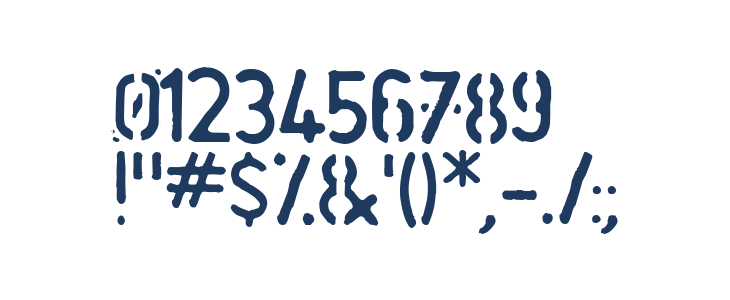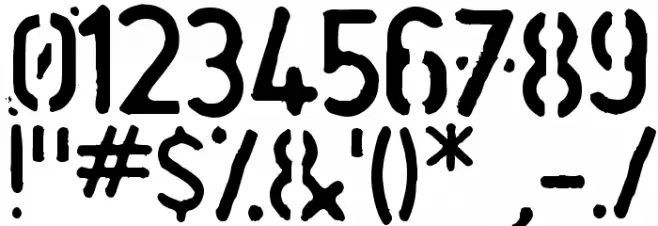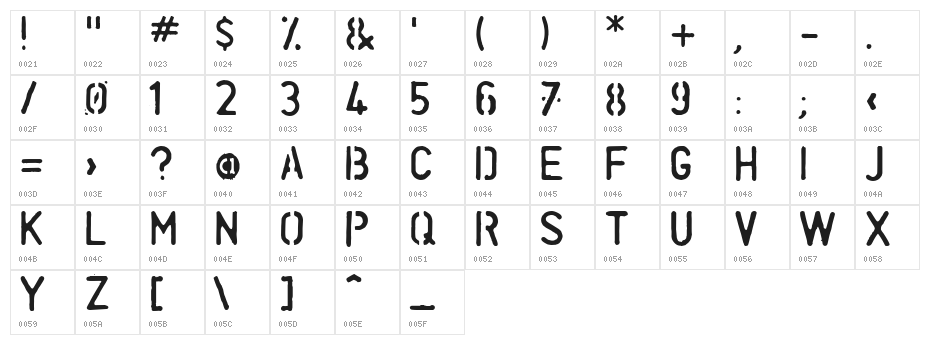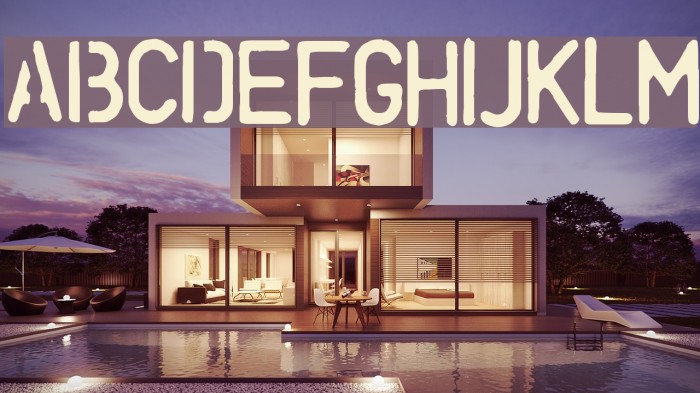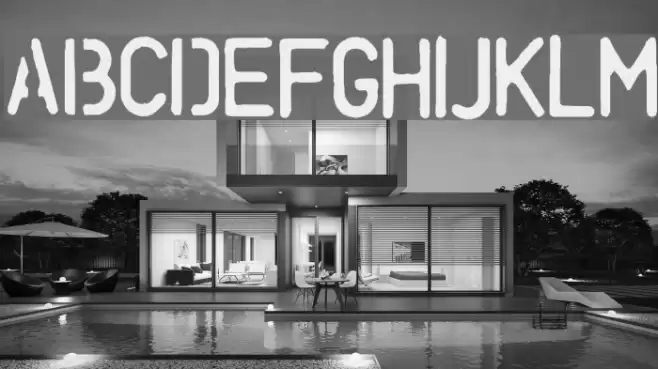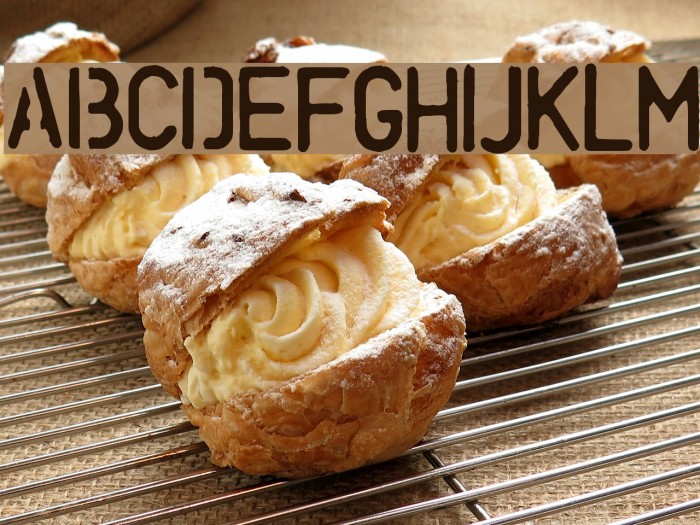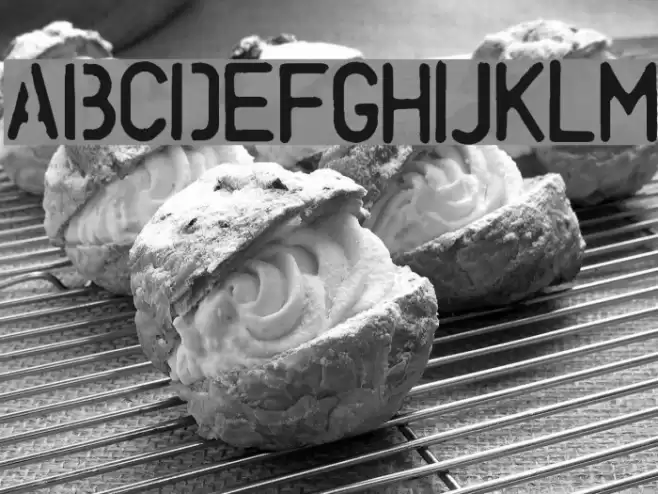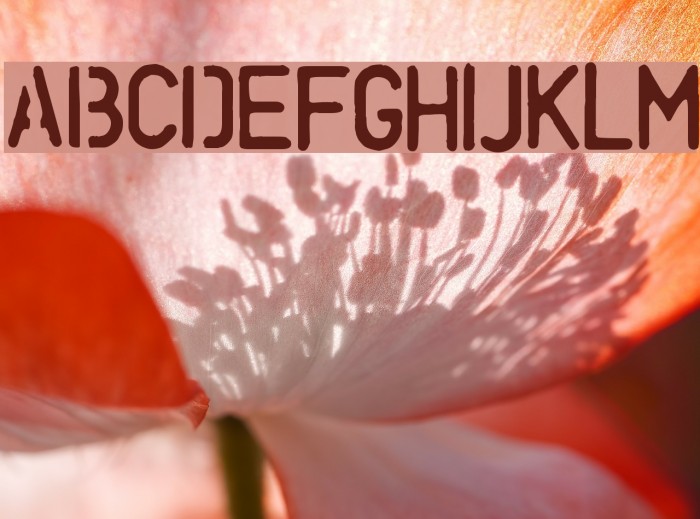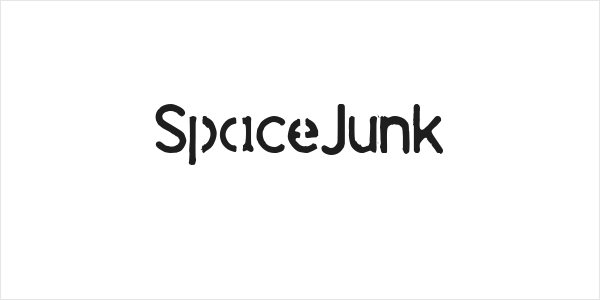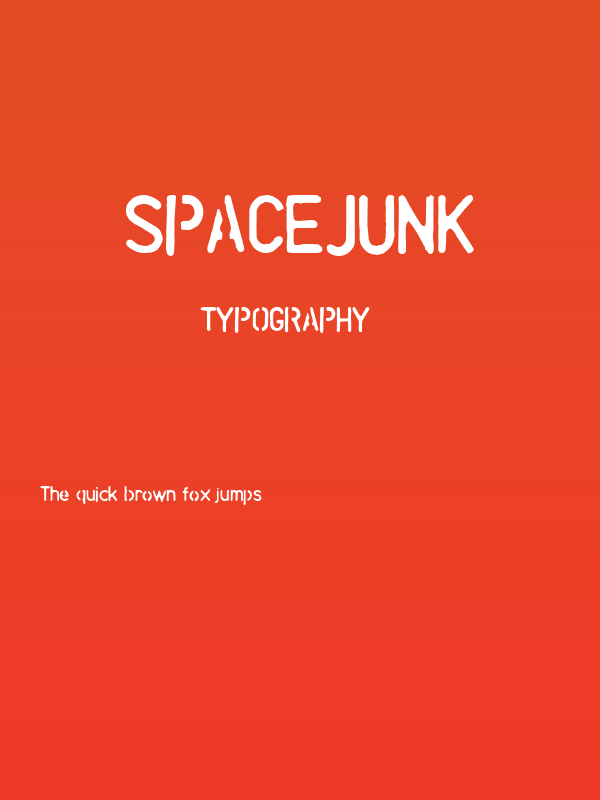
SpaceJunk Font
SpaceJunk Description
This font features a bold and rugged design with a distinctly hand-drawn appearance. The characters are slightly irregular, giving them a unique, organic feel. The uppercase and lowercase letters maintain a consistent style, with rounded edges and a somewhat distressed texture. The numbers and special characters follow the same aesthetic, ensuring a cohesive look across all elements. This font's bold strokes and uneven lines create a sense of movement and energy, making it stand out in any design.